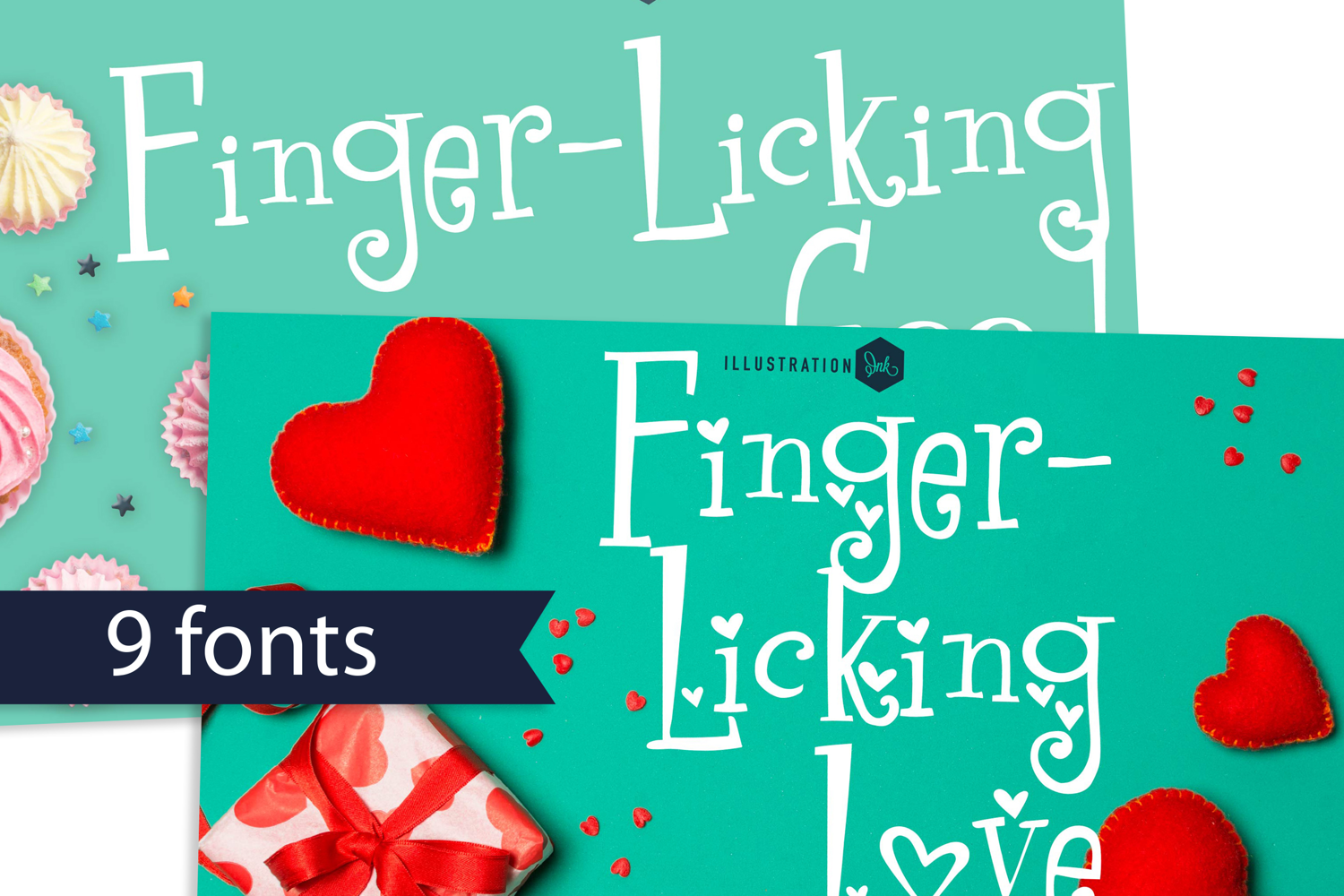
PN Finger Licking Font Family
This hand-crafted font is a whimsical, serif with some family members sporting hearts. There are 9 variations included.
• The letters are not perfectly uniform in size or shape.
• There may be slight variations in the spacing between letters and words.
• The font may have a "wiggly" or "squiggly" appearance.
• The font may be difficult to read at small sizes.